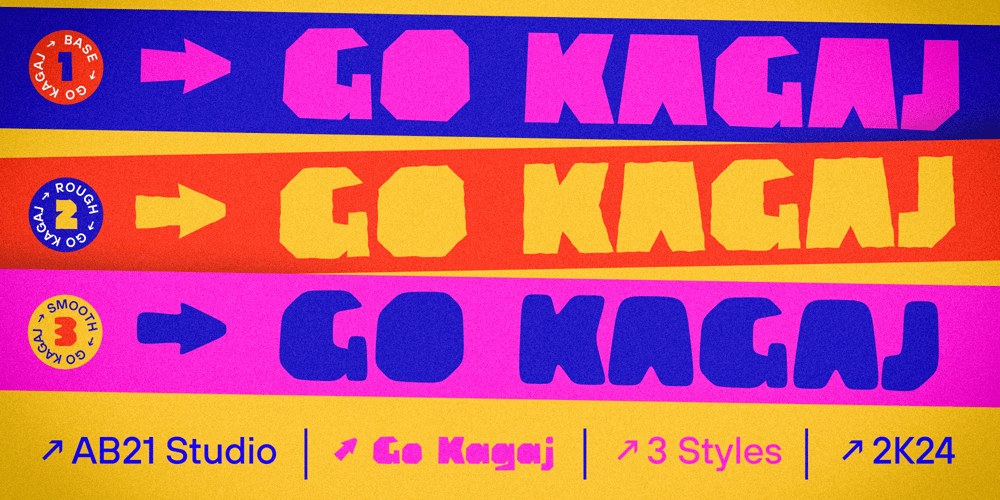
Go Kagaj Font Family was designed by Amarendra Basak and published by AB21 Studio. Go Kagaj contains 3 styles and family package options. Go Kagaj is a bold quirky modern display font that is inspired from paper cutouts and stickers. It is perfect for giving your project a fun and playfulness. Perfect for headlines on posters, Instagram, print projects. Also it can used as a shape or mask.